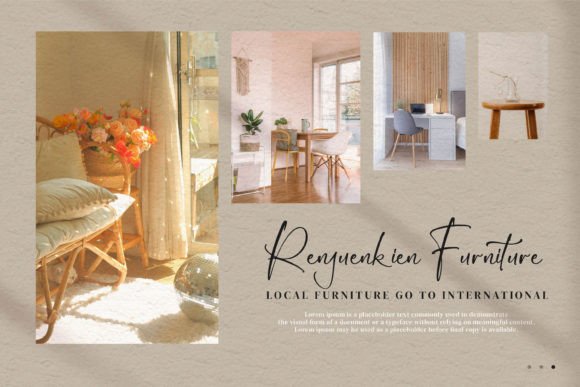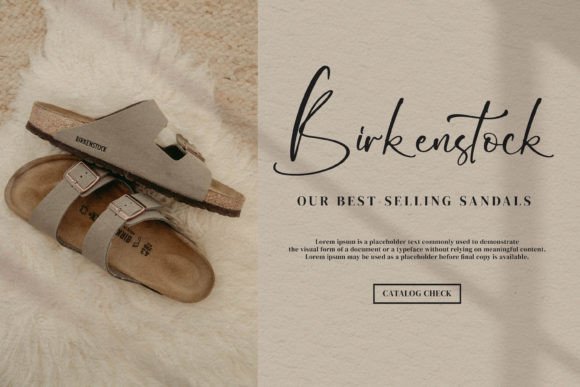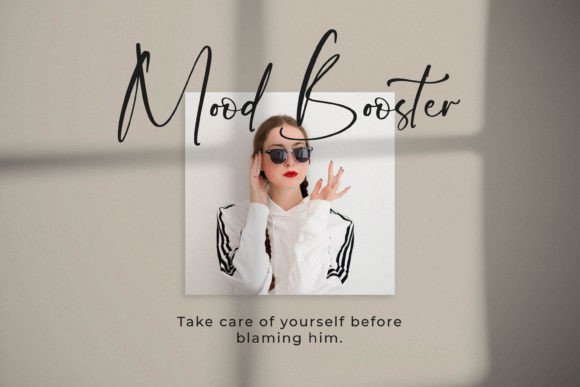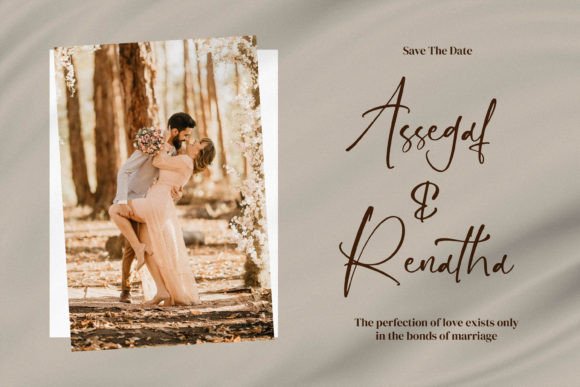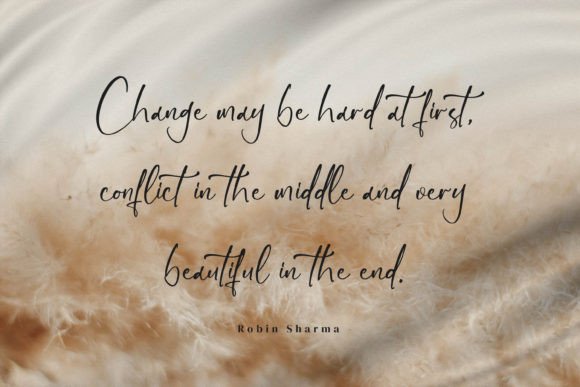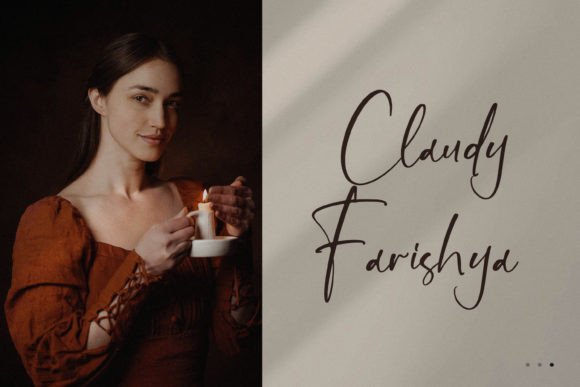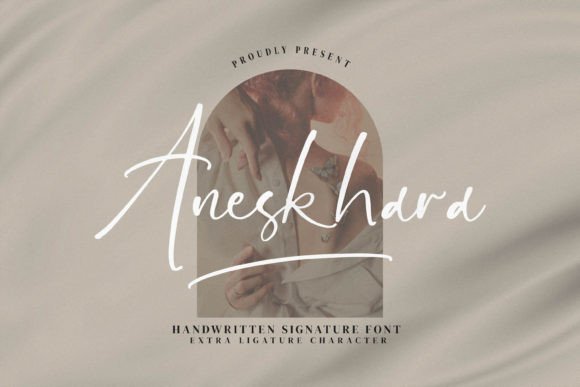
Discover the Elegance of Aneskhara Font: Elevate Your Designs with a Timeless Touch
In the world of typography, few fonts manage to capture the essence of elegance and timelessness. Aneskhara Font is one such gem that has been making waves in the design community. This flowing handwritten font is described by an elegant touch, perfect for your favorite projects. If you’re looking to add a touch of sophistication and distinctiveness to your designs, Aneskhara is the perfect choice.
The Unique Charm of Aneskhara Font
Aneskhara Font boasts an incredibly distinct and timeless style that sets it apart from other fonts. Its flowing script and elegant strokes evoke a sense of luxury and refinement, making it ideal for projects that demand a high level of sophistication. Whether you’re working on a branding project, a wedding invitation, or a packaging design, Aneskhara Font is sure to make a lasting impression.
Why Designers and Crafters Love Aneskhara Font
So, what makes Aneskhara Font a favorite among designers and crafters? Here are just a few reasons:
- Elegant Touch: Aneskhara Font’s elegant strokes and flowing script add a touch of sophistication to any design.
- Versatility: This font is perfect for a wide range of projects, from branding and advertising to packaging and stationery.
- Timeless Style: Aneskhara Font’s classic style ensures that your designs will remain relevant for years to come.
- Easy to Read: Despite its elegant nature, Aneskhara Font is surprisingly easy to read, making it perfect for body text and headlines.
How to Use Aneskhara Font in Your Designs
Using Aneskhara Font in your designs is incredibly easy. Here are a few tips to get you started:
- Pair it with a Sans-Serif Font: For a classic look, pair Aneskhara Font with a sans-serif font like Arial or Helvetica.
- Use it as a Headline Font: Aneskhara Font’s elegant strokes make it perfect for headlines and titles.
- Experiment with Colors: Try pairing Aneskhara Font with different colors to create a unique and eye-catching design.
Tips for Crafters and DIY Enthusiasts
If you’re a crafter or DIY enthusiast, Aneskhara Font can add a touch of elegance to your projects. Here are a few tips:
- Use it for Wedding Invitations: Aneskhara Font is perfect for wedding invitations, adding a touch of romance and sophistication.
- Add it to Your Stationery: Use Aneskhara Font to create beautiful stationery, including greeting cards and thank-you notes.
- Try it on Fabric: Aneskhara Font looks stunning on fabric, making it perfect for custom t-shirts, tote bags, and more.
In conclusion, Aneskhara Font is a beautiful and elegant handwritten font that’s perfect for designers and crafters alike. Its timeless style and flowing script make it ideal for a wide range of projects, from branding and advertising to packaging and stationery. With its ease of use and versatility, Aneskhara Font is sure to become a favorite in your design arsenal. So why wait? Fall in love with Aneskhara Font and elevate your designs to the next level!
- Elegant and flowing handwritten font
- Perfect for branding, advertising, packaging, and stationery
- Timeless style and classic elegance
- Easy to read and versatile